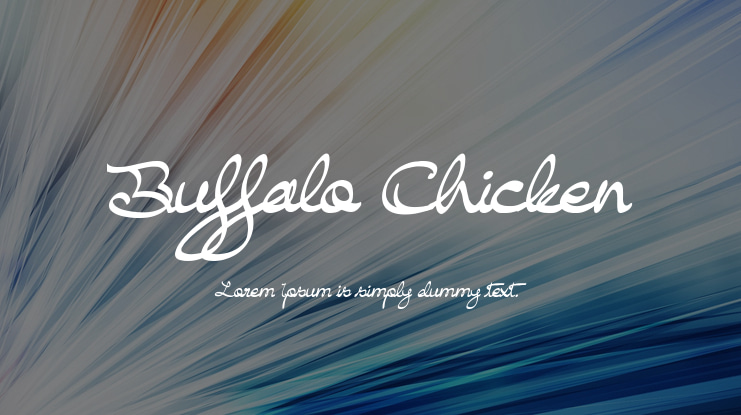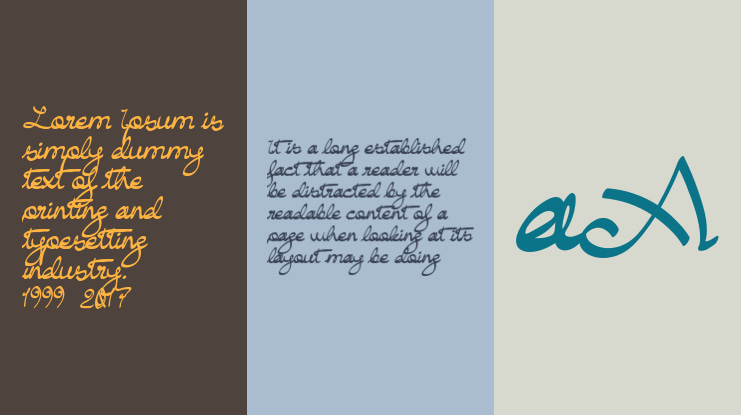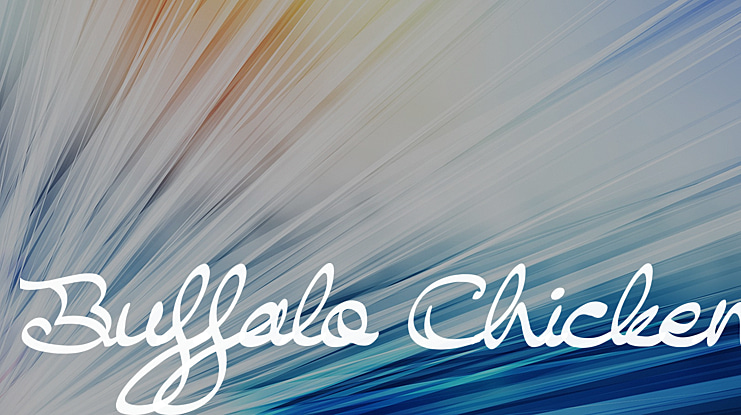
Buffalo Chicken Font
BUFFALO CHICKEN is my first attempt to create a cursive , continuous looking Font.
This is a kind of a demo version so far. Typing with caps lock is not recommended cause it may cause bad result as the Caps has not been kerned to each other,however they look better followed the small letters.